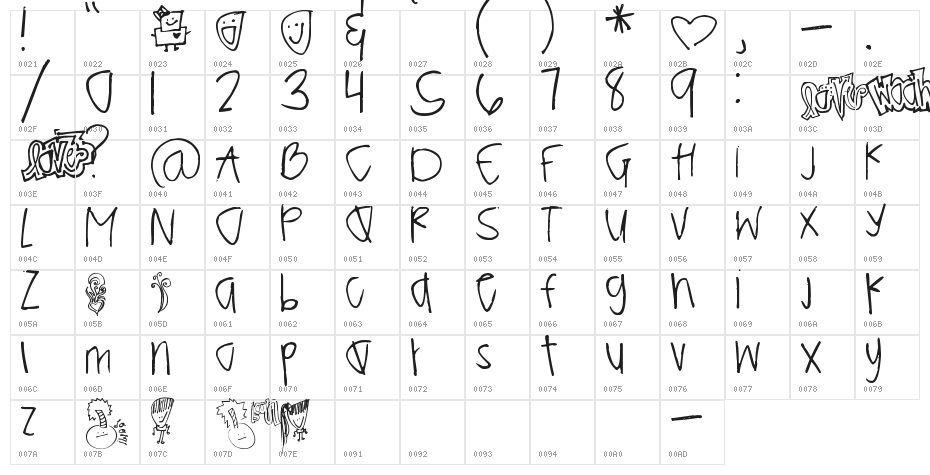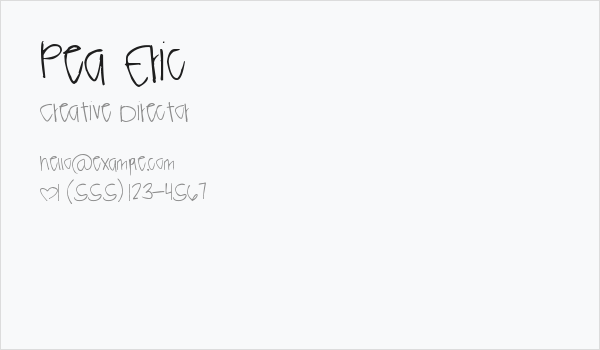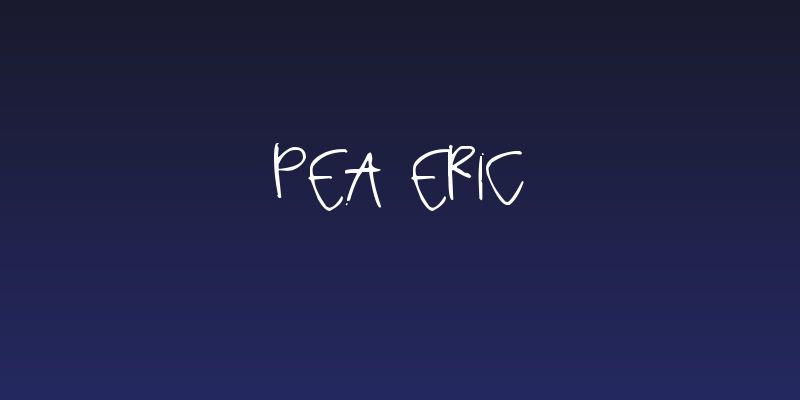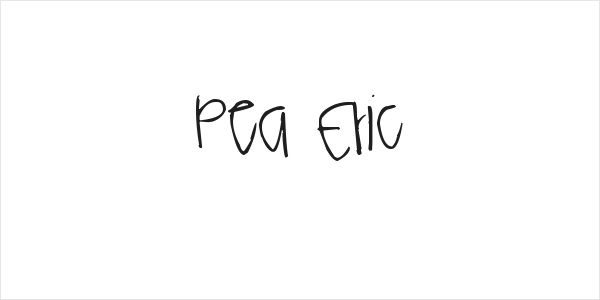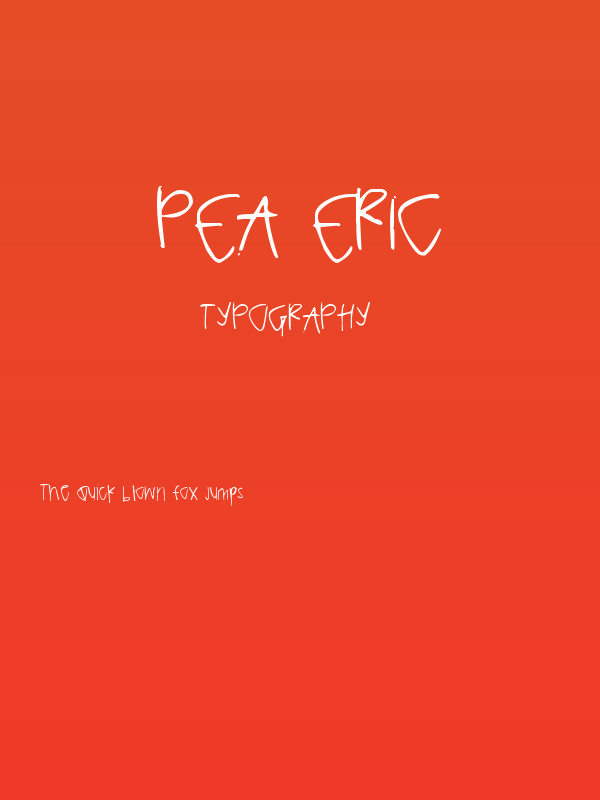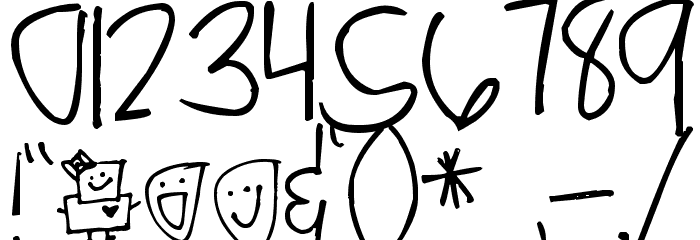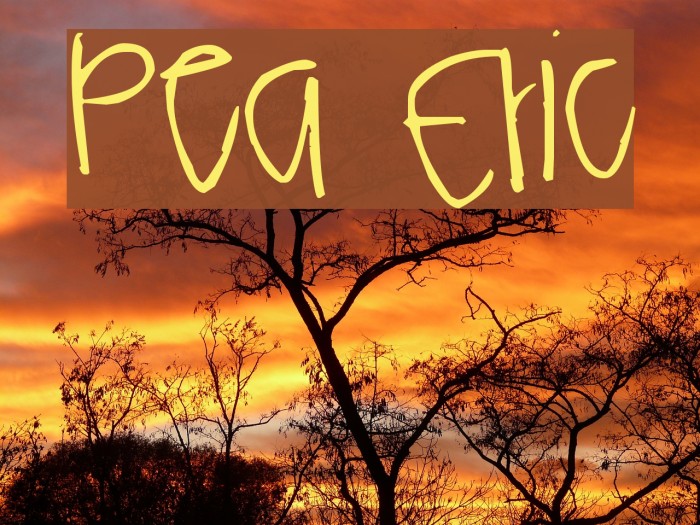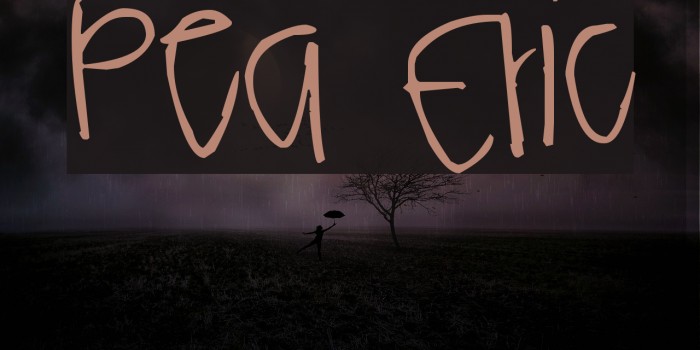
Pea Eric Font
Pea Eric Description
This playful and whimsical font features a handwritten style with irregular strokes, giving it a casual and friendly appearance. The letters are slightly slanted, and the strokes vary in thickness, adding to its informal charm. The uppercase and lowercase letters maintain a consistent style, with rounded edges and a slightly uneven baseline, enhancing its organic feel. Numbers and special characters follow the same playful design, making it versatile for creative projects. The font's unique personality makes it ideal for projects that require a personal touch.
| Proposed Projects | Ideal for greeting cards, children's books, personal blogs, and creative branding projects. |